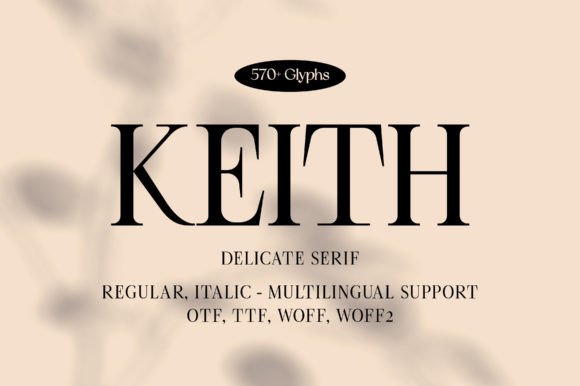
Behold KEITH, the font that captures the essence of timeless elegance in the world of serif fonts. Designed by Minimalistartstudio, this typographic masterpiece is a true gift for designers, typographers, and creative visionaries who yearn for classic aesthetics in their work.
KEITH's strokes exude an air of sophistication, meticulously crafted to convey a sense of refinement and understated luxury. Its curves are graceful and inviting, reminiscent of the sweeping lines of calligraphy, while its edges are crisp and defined, ensuring clarity and readability.
Dive into the realm of KEITH and discover a font that transcends the boundaries of time. Its versatile character lends itself effortlessly to a wide spectrum of design projects, from enchanting wedding invitations to eye-catching branding materials. Whether your canvas is print or digital, KEITH harmonizes seamlessly, adding a touch of elegance and poise to every creation.
Imagine your words adorned in the timeless beauty of KEITH. Your designs will radiate a sense of refinement, attracting the attention of those who appreciate the finer things in life. From captivating headlines that demand attention to elegant body text that invites readers to delve deeper, KEITH empowers you to communicate with impact and leave a lasting impression.
KEITH is more than just a font; it's an artistic journey that invites you to explore the depths of your creativity. With its timeless appeal, this serif masterpiece will elevate your designs to new heights of sophistication, ensuring that your message resonates with grace and distinction.